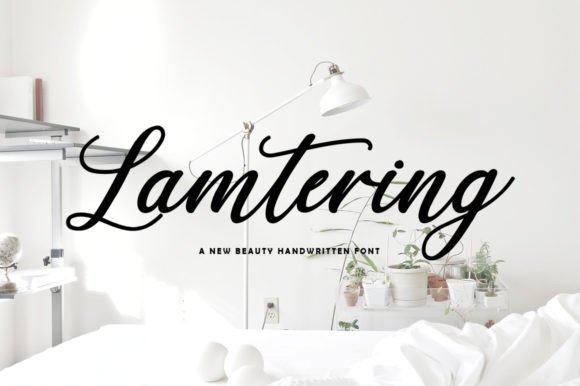
About Lamtering
Lamtering is a lovely and flowing handwritten font. It has beautiful and well-balanced characters, and as a result, it matches a wide pool of designs.